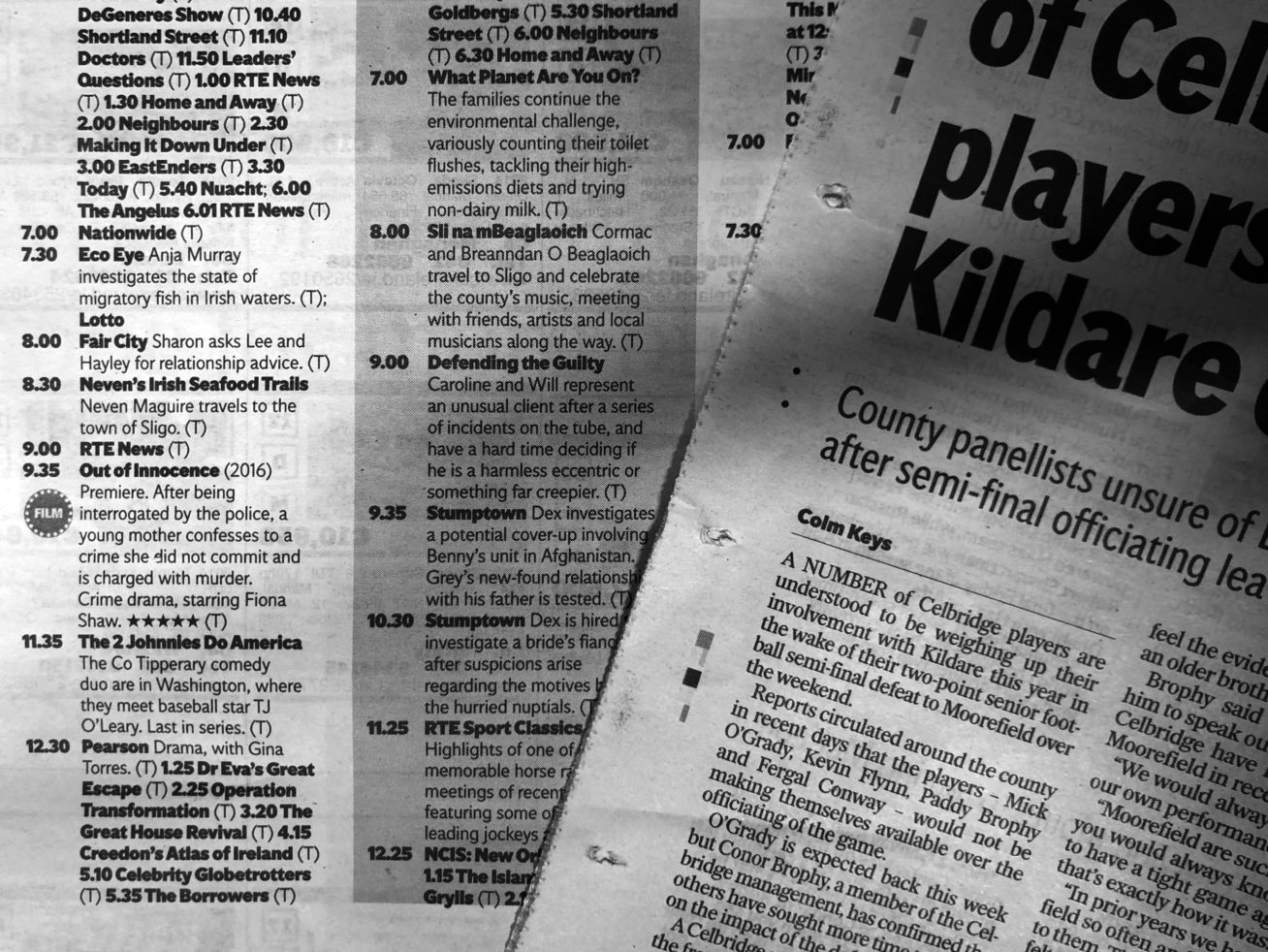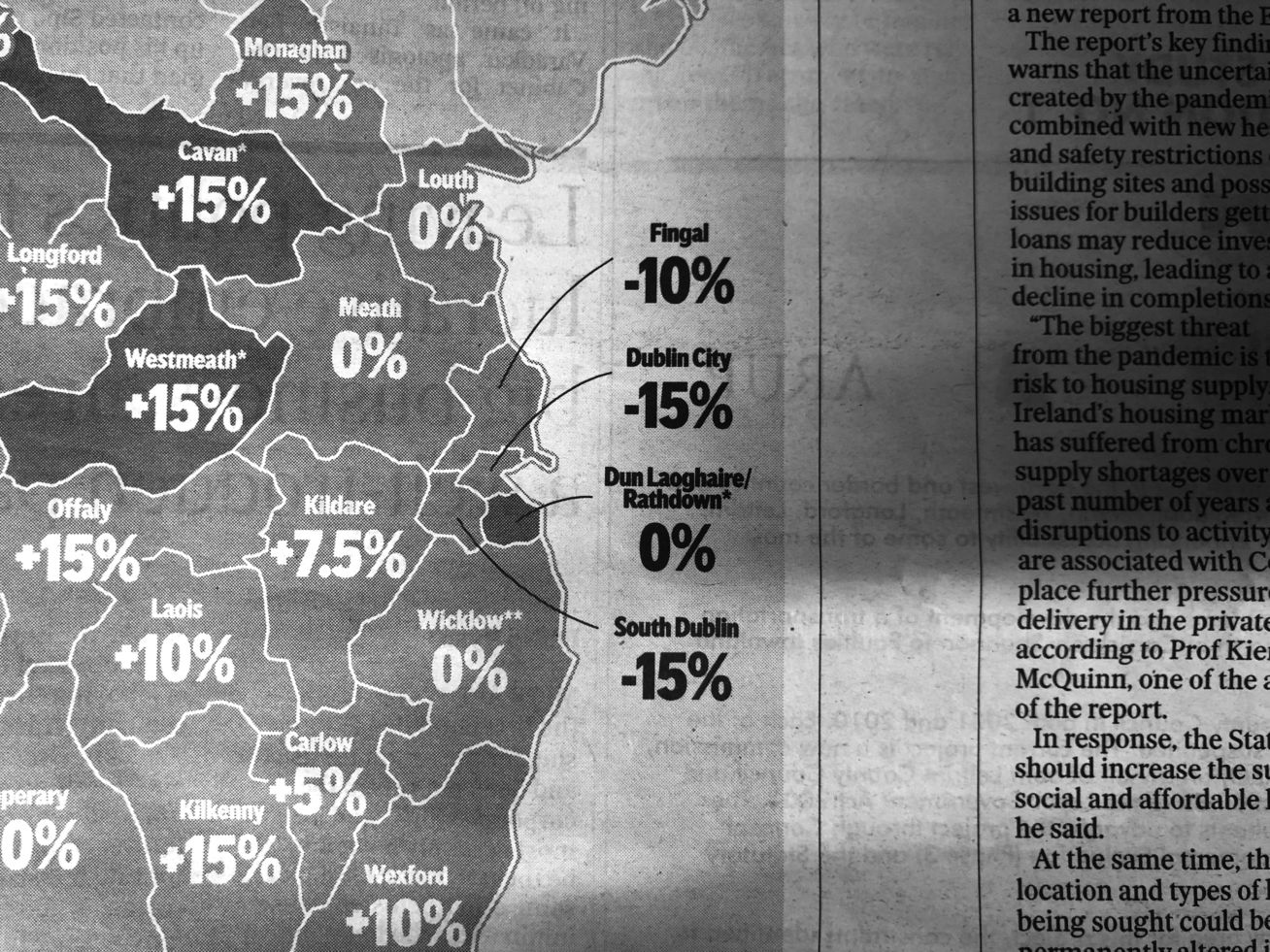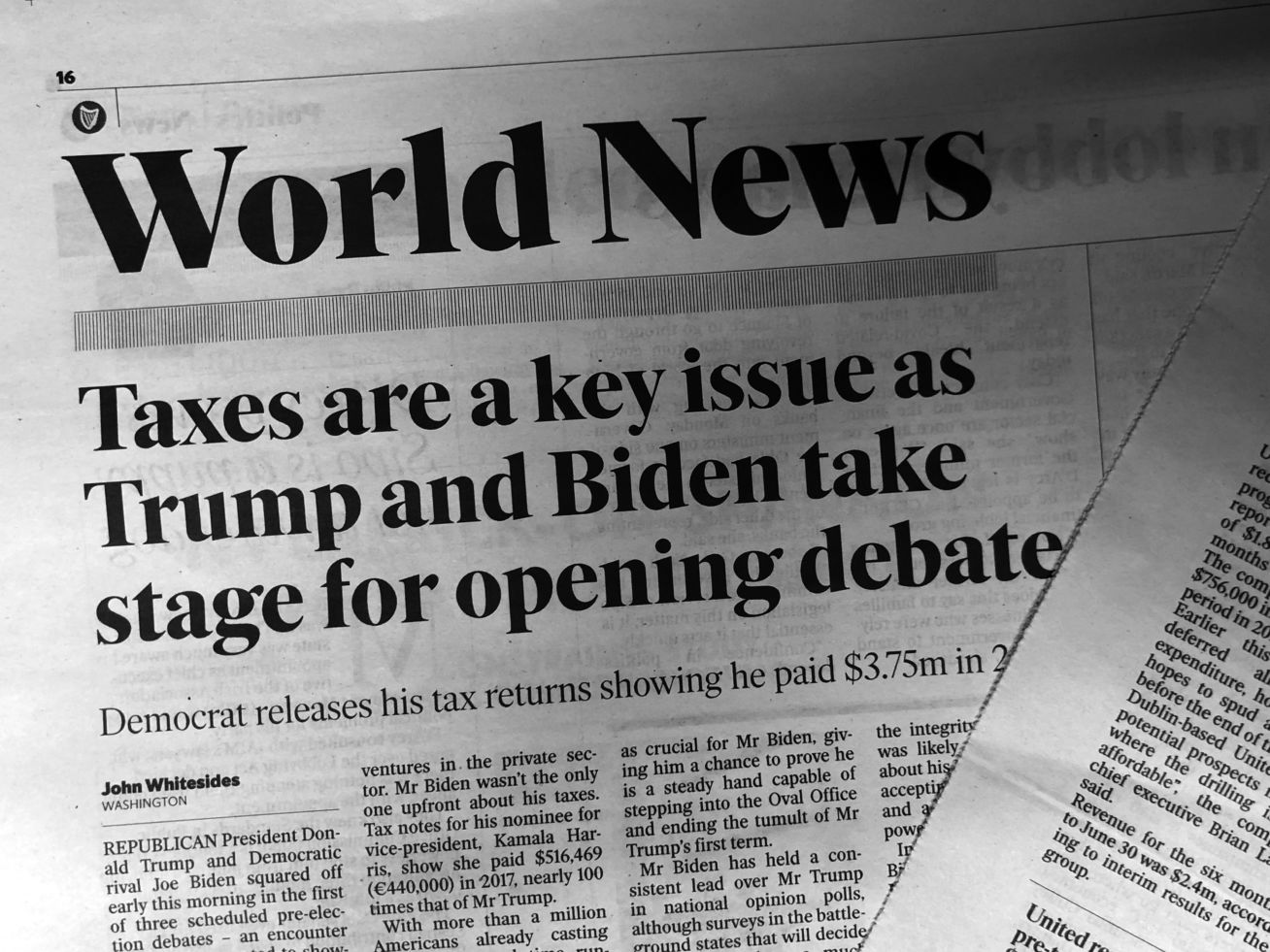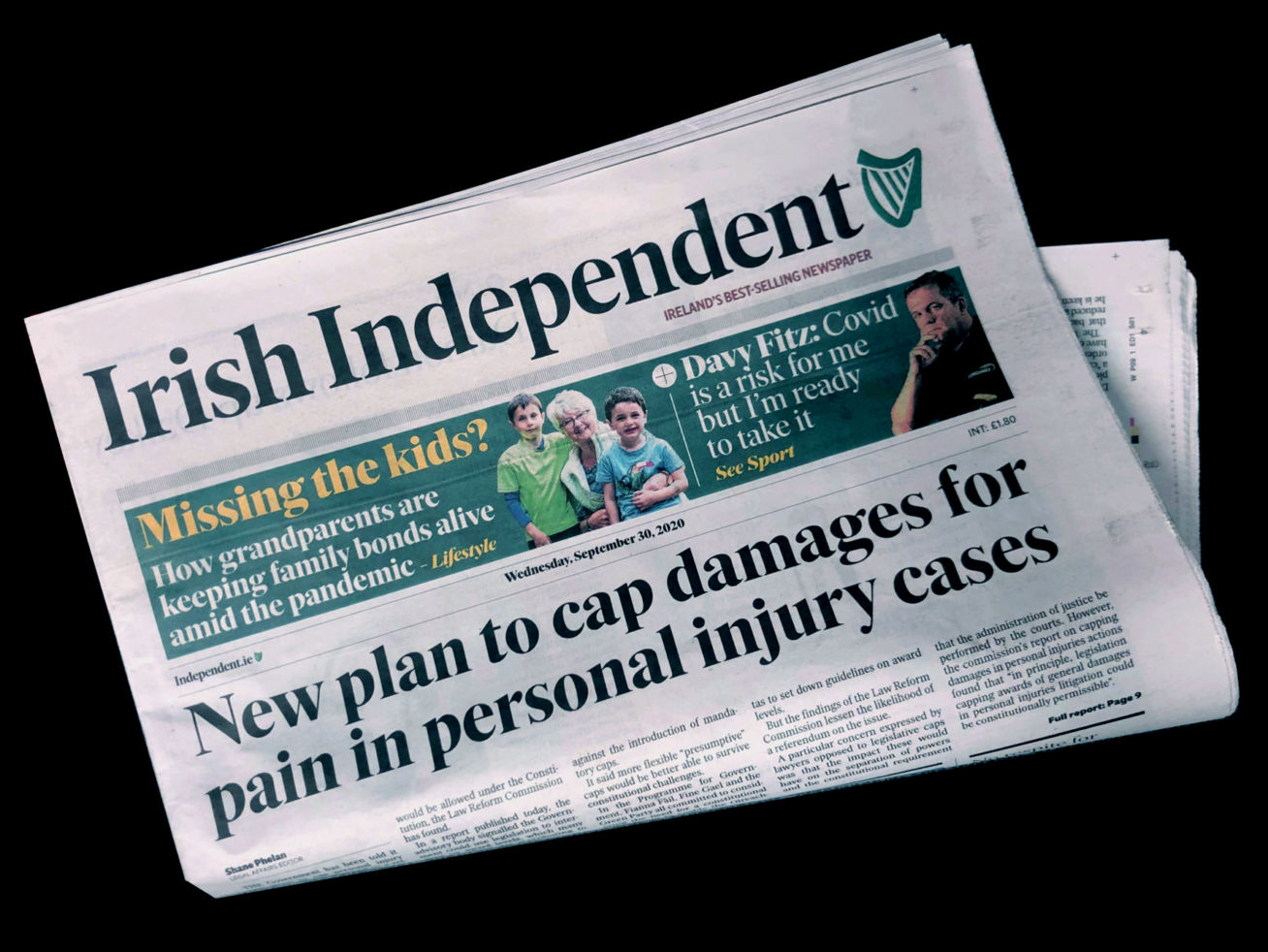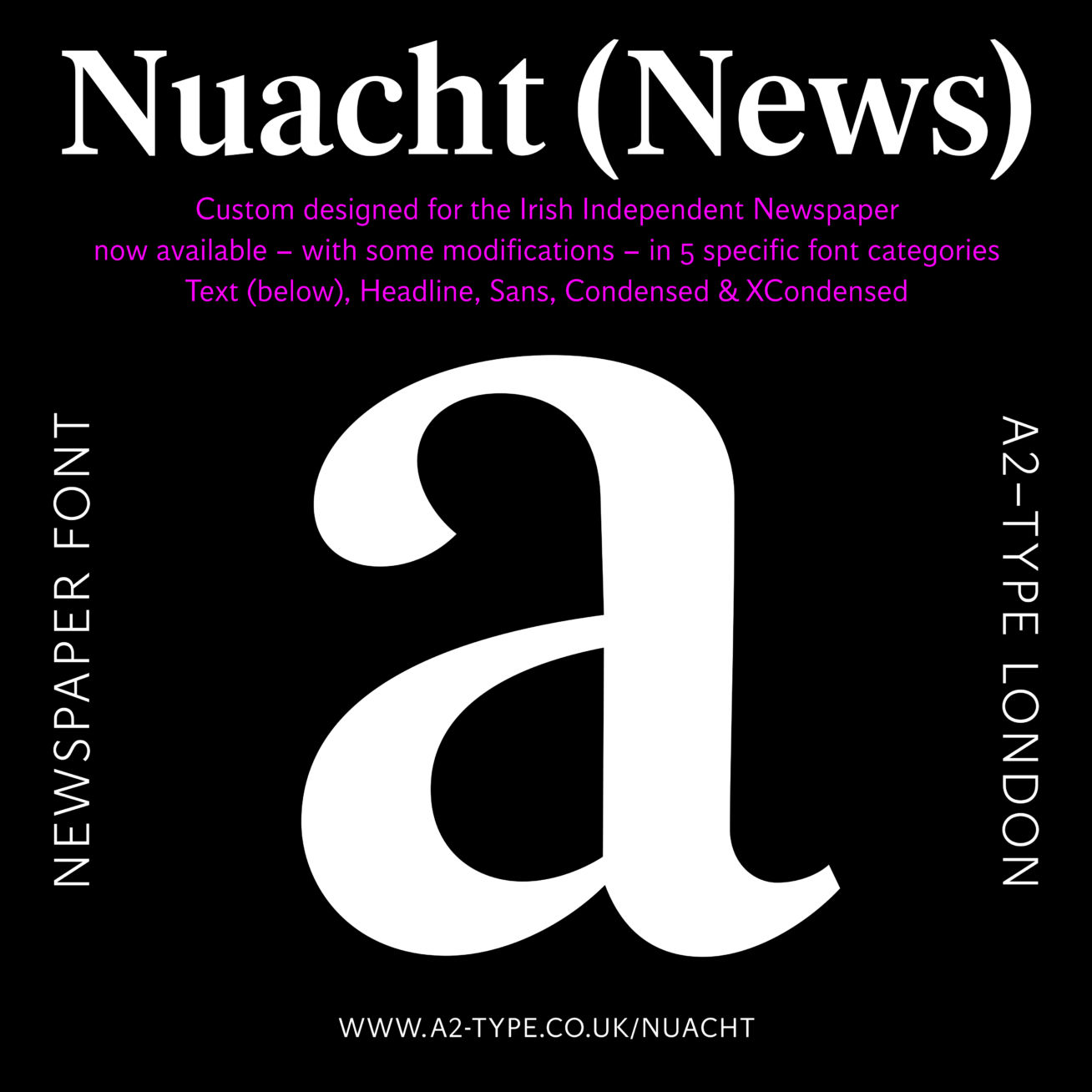
Nuacht
Nuacht (News) is a series of interconnected, versatile fonts designed for the Irish Independent newspaper as part of their 2018 redesign. The font system comprises: Serif for long read, Display for headlines, Sans for captions, with Condensed and X Condensed variations for the Sports section and General Information Graphics. The Serif fonts draw inspiration from calligraphic ink lettering and early metal type samples of SB Times Roman, and complimented by a ‘Humanistic’ Sans with an industrial character. Variable fonts available on request. A printed typeface specimen is available here.